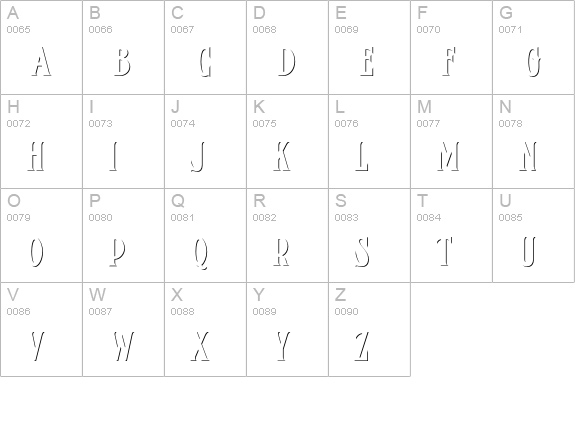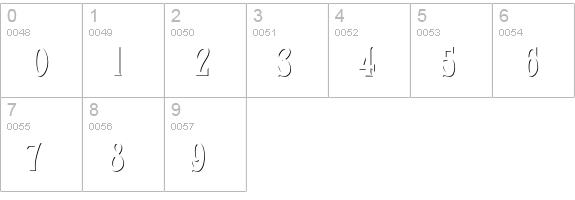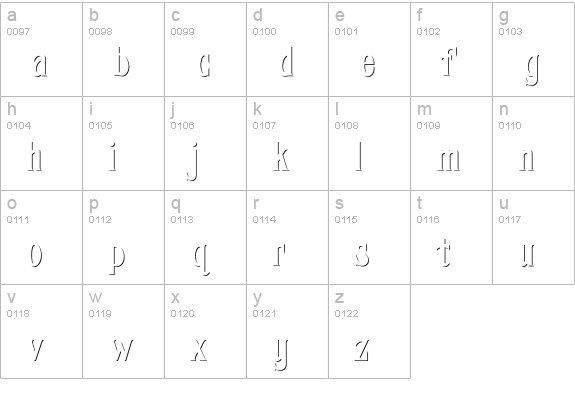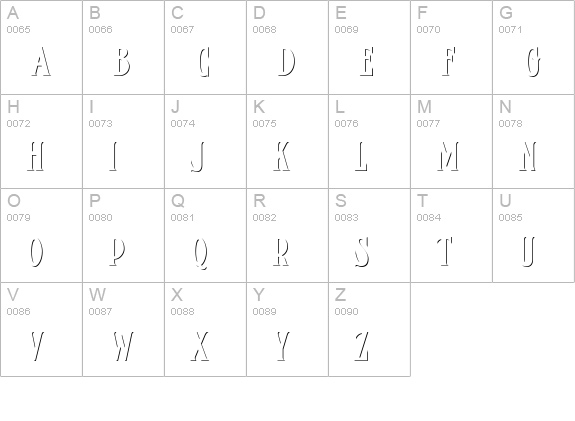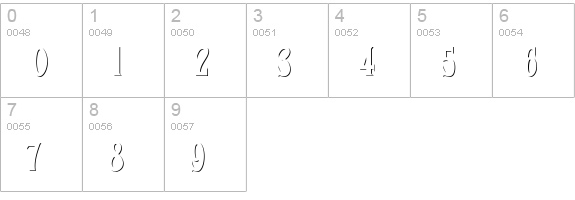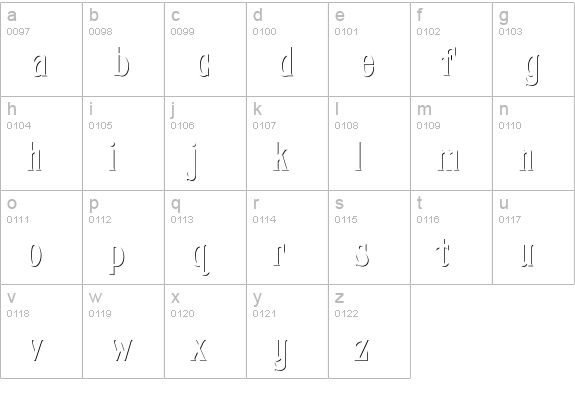
FHA Condensed French Shade NC is a distinctive, condensed-width variant in the FHA typeface family \xE2\x80\x94 well suited to design and typography projects.
FHA Condensed French Shade NC font is a stunning typeface that effortlessly combines elegance and sophistication with a touch of vintage charm. This condensed font exudes a sense of French-inspired refinement, making it the perfect choice for adding a touch of class to any design project. Featuring beautifully crafted letterforms with intricate shading details, FHA Condensed French Shade NC font adds depth and dimension to your typographic creations. Its condensed structure allows for efficient use of space while maintaining readability, making it an ideal choice for headlines, titles, and other display purposes. But what truly sets FHA Condensed French Shade NC font apart is its unique blend of classic and contemporary elements. The carefully crafted shading adds a sense of depth and texture to the letters, creating a visually captivating effect. Each character is meticulously designed to ensure harmonious proportions and smooth curves, resulting in a seamless and visually pleasing typeface. And the best part? FHA Condensed French Shade NC font is absolutely free! You can easily download it from FontsMarket.com, a trusted source for high-quality fonts. This means that you can add this beautiful typeface to your font library without spending a dime, making it an excellent choice for both personal and commercial projects. Whether you're designing a sophisticated wedding invitation, creating a vintage-inspired logo, or adding a touch of elegance to your branding materials, FHA Condensed French Shade NC font is a versatile choice that will elevate your design to new heights. Its timeless appeal and attention to detail make it a must-have for any designer looking to make a lasting impression. So why wait? Download FHA Condensed French Shade NC font today and unleash your creativity with this exquisite typeface.